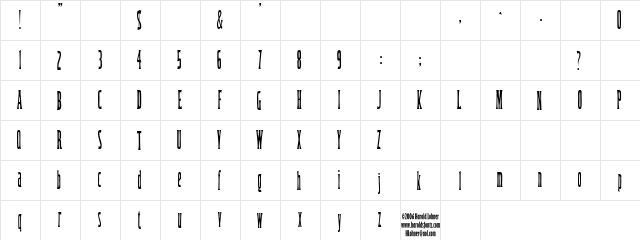
Cinderella Regular
Design Context for Cinderella Typeface
Cinderella is a composed and adaptable typeface that performs quietly and consistently across a wide range of design contexts.